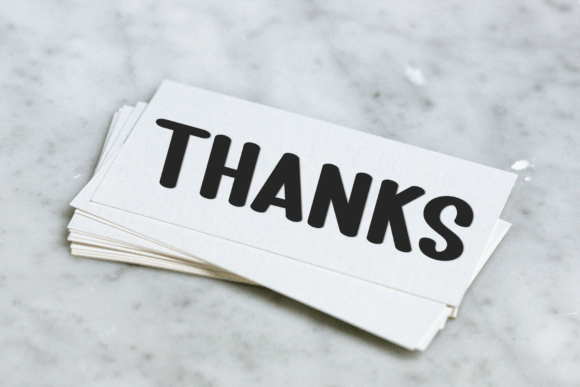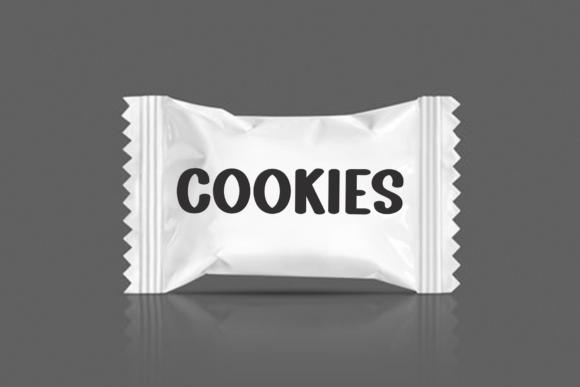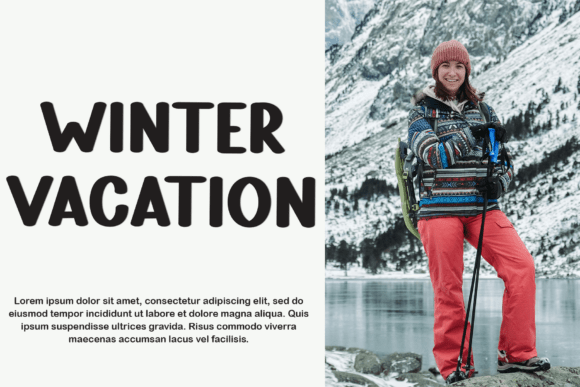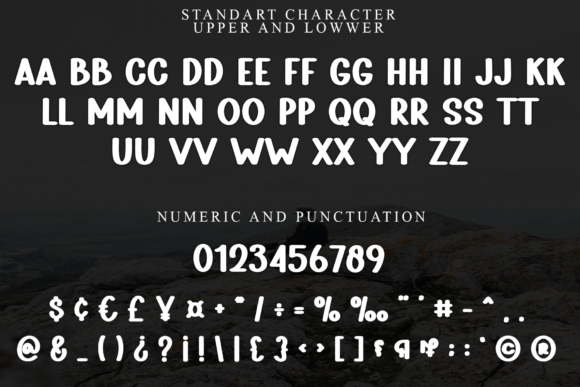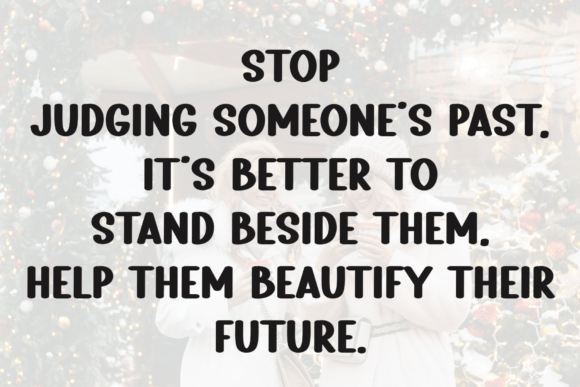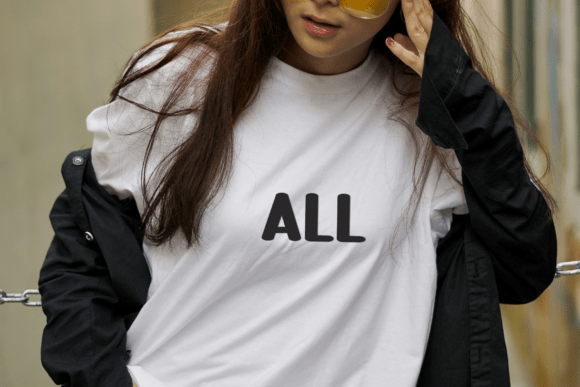
Introducing Birthday Autumn Font: Elevate Your Designs with a Touch of Nature
Are you a designer, crafter, or creative looking for a unique and captivating font to enhance your projects? Look no further than the Birthday Autumn Font, a stunning and versatile typeface that brings a soft, natural touch to your designs. With its distinctive strokes and special character, this font is perfect for a wide range of creative works, from design projects and crafts to artistic expressions.
A Beautiful and Eye-Catching Font
The Birthday Autumn Font is designed to stand out from the crowd, boasting a beautiful and eye-catching aesthetic that’s sure to capture the attention of your audience. Its soft, unique touch gives it a natural and effortless feel, making it perfect for designs that require a touch of warmth and personality. Whether you’re working on a logo, branding materials, or creative projects, this font is sure to make a lasting impression.
Distinctive Strokes and Versatility
One of the key features that sets the Birthday Autumn Font apart is its distinctive strokes, which give it a special character that’s both meaningful and versatile. With a range of characters to choose from, you can experiment with different styles and combinations to create unique and captivating designs. Whether you’re looking for a bold statement or a subtle accent, this font has the flexibility to adapt to your creative vision.
The Birthday Autumn Font is a perfect fit for designers and crafters working on a variety of projects, from digital designs to handmade crafts. Its natural and effortless style makes it ideal for:
• Logo design and branding materials
• Stationery and greeting cards
• DIY crafts and handmade projects
• Digital art and illustrations
• Web design and development
Enhance Your Designs and Appeal to a Wide Audience
The Birthday Autumn Font is designed to enhance your designs and appeal to a wide audience across different artistic and creative fields. Its natural and effortless style makes it perfect for:
• Artistic expressions and creative projects
• Designs that require a touch of warmth and personality
• Brands and businesses looking for a unique and captivating visual identity
Whether you’re working on a personal project or a commercial design, this font is sure to help you create a lasting impression and connect with your audience.